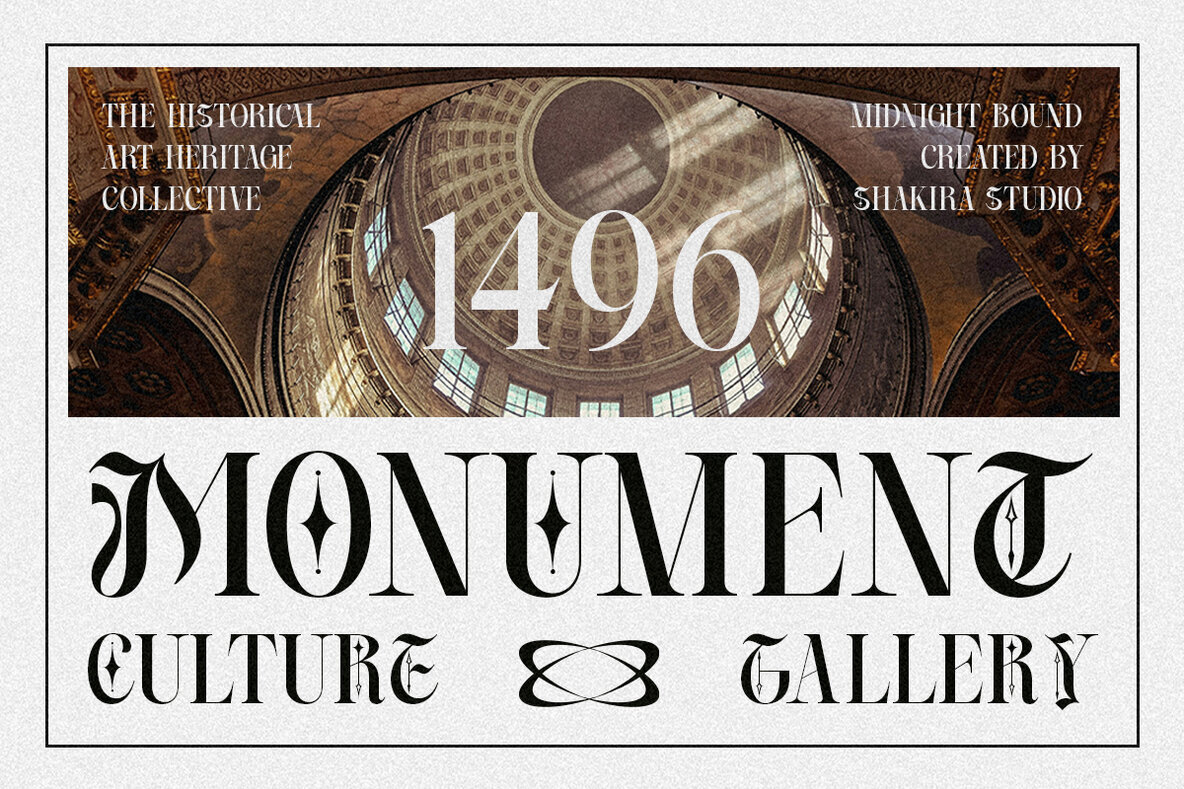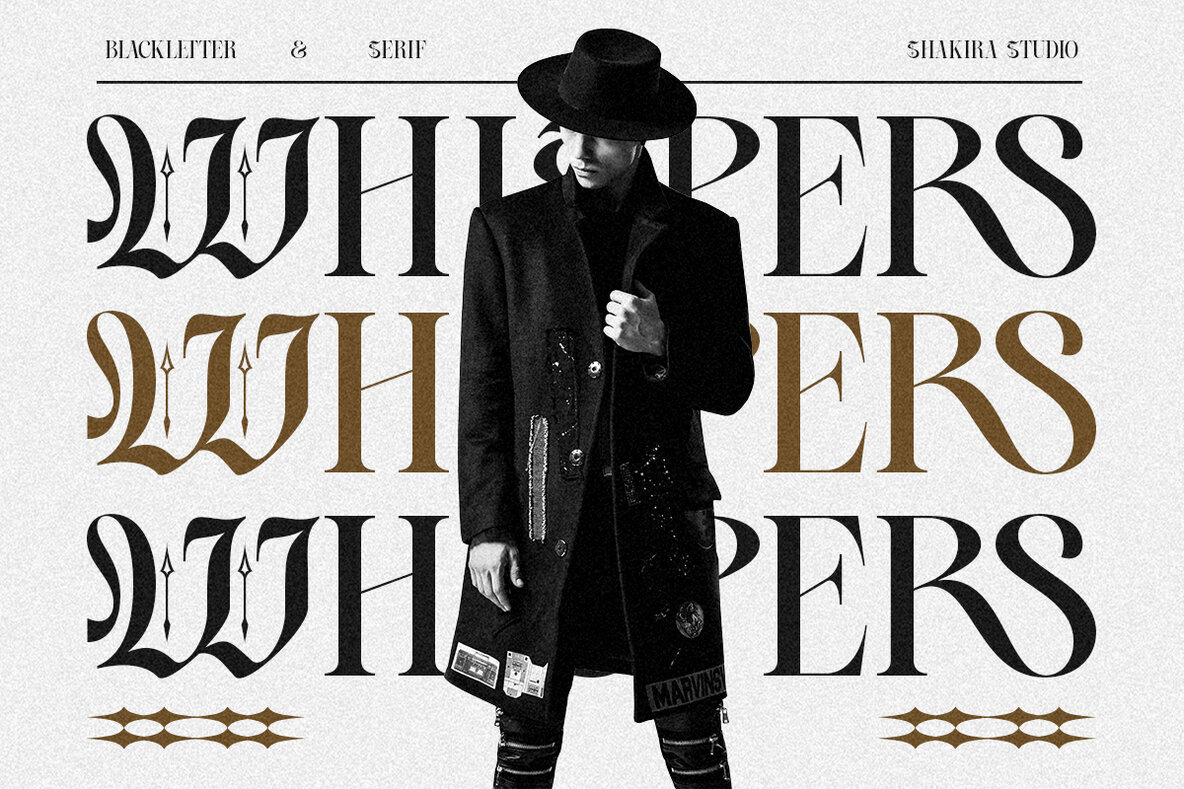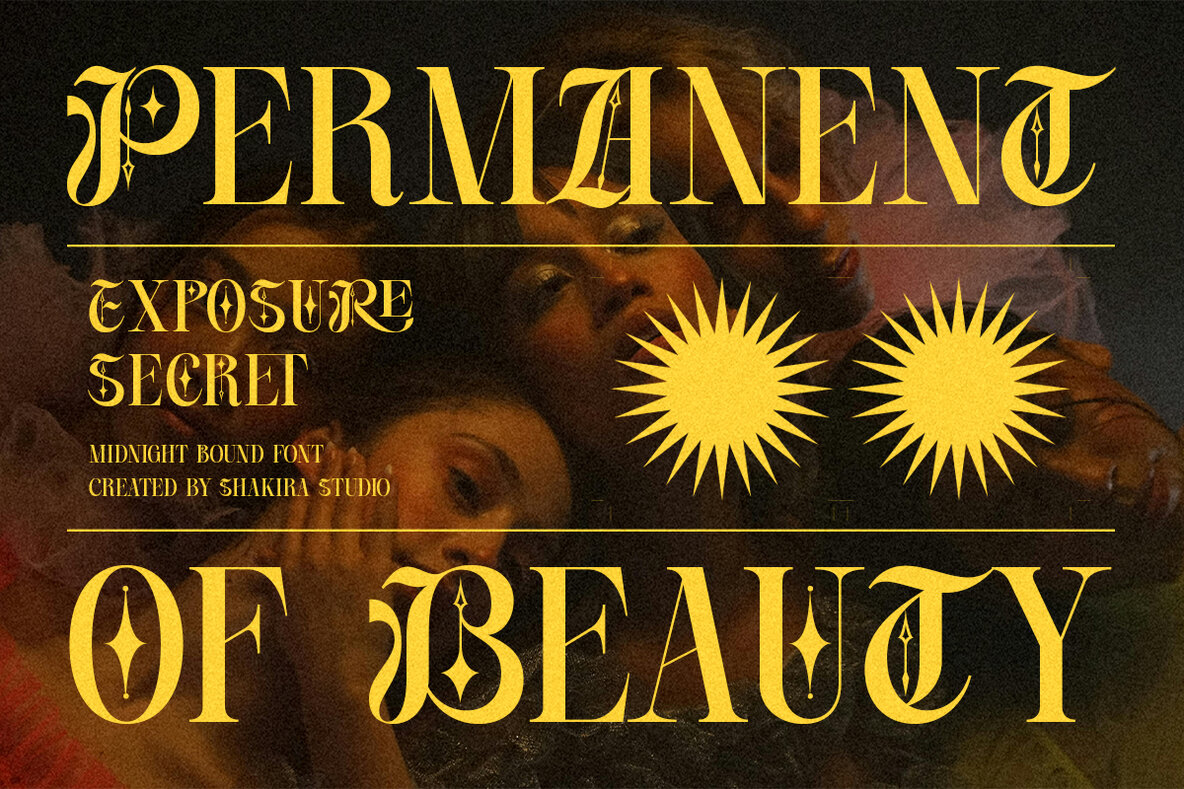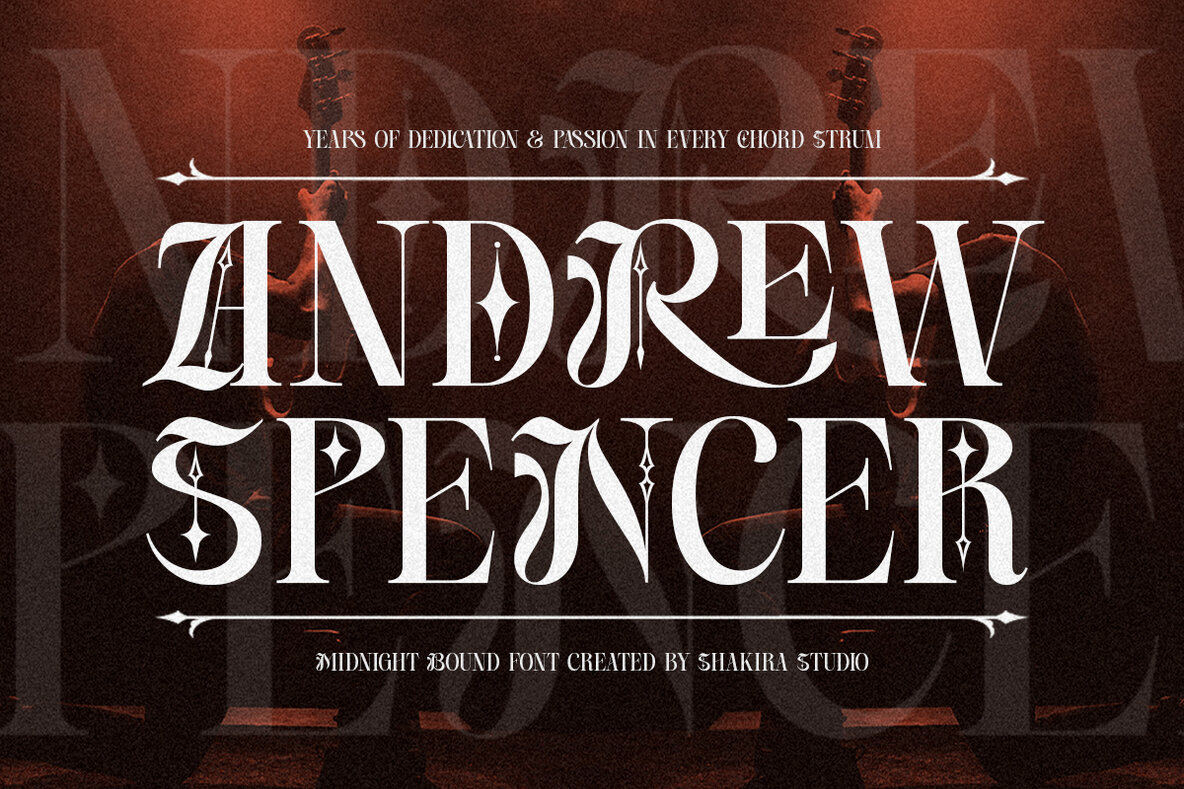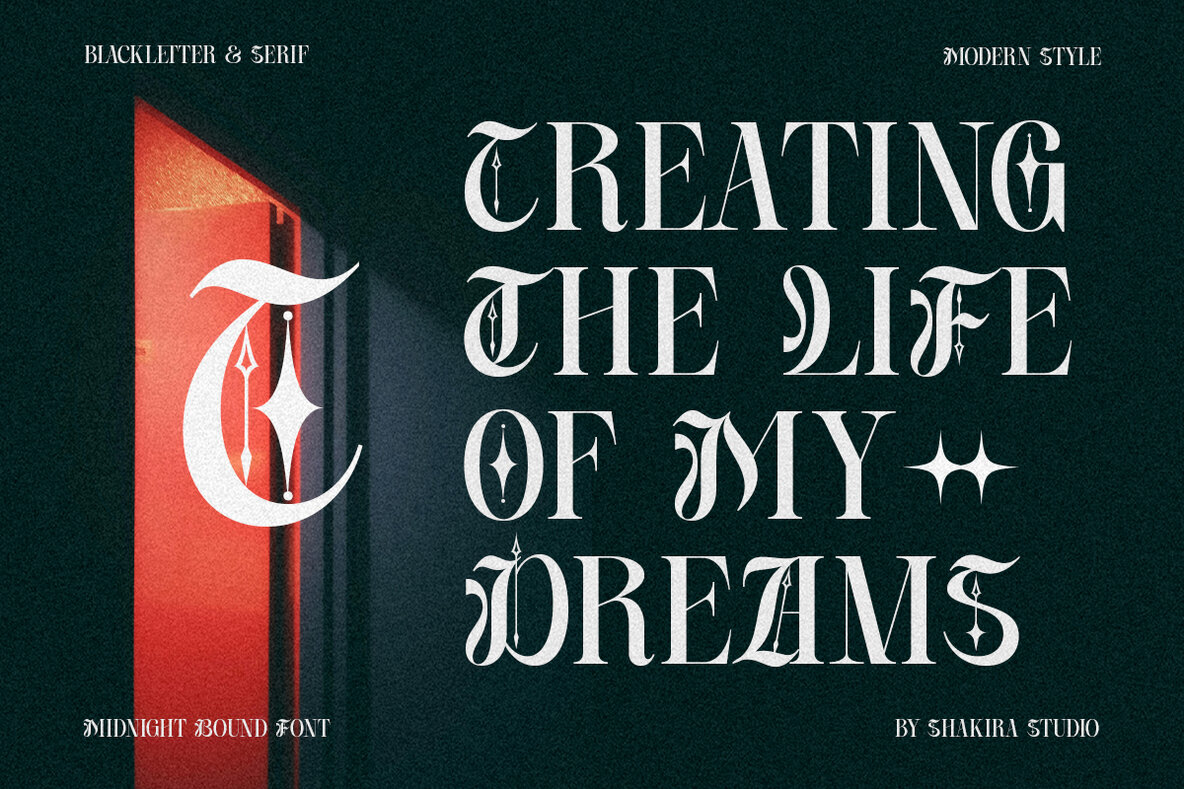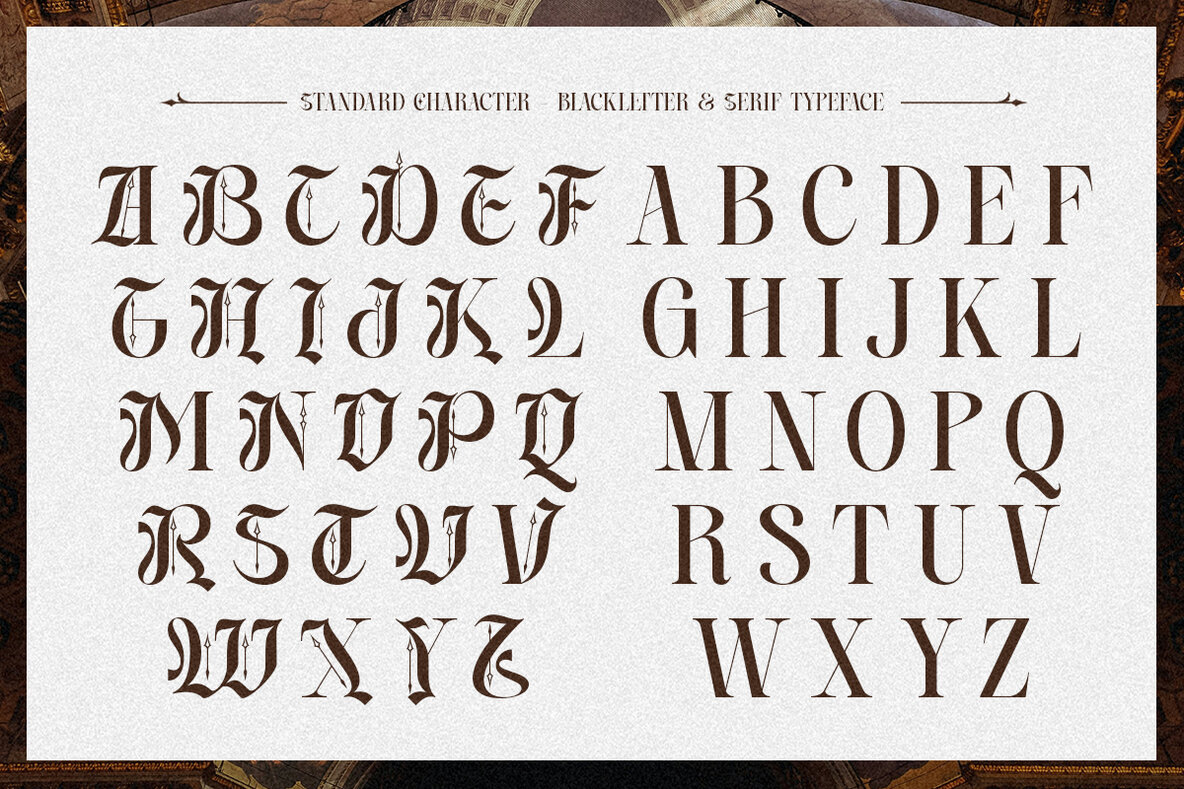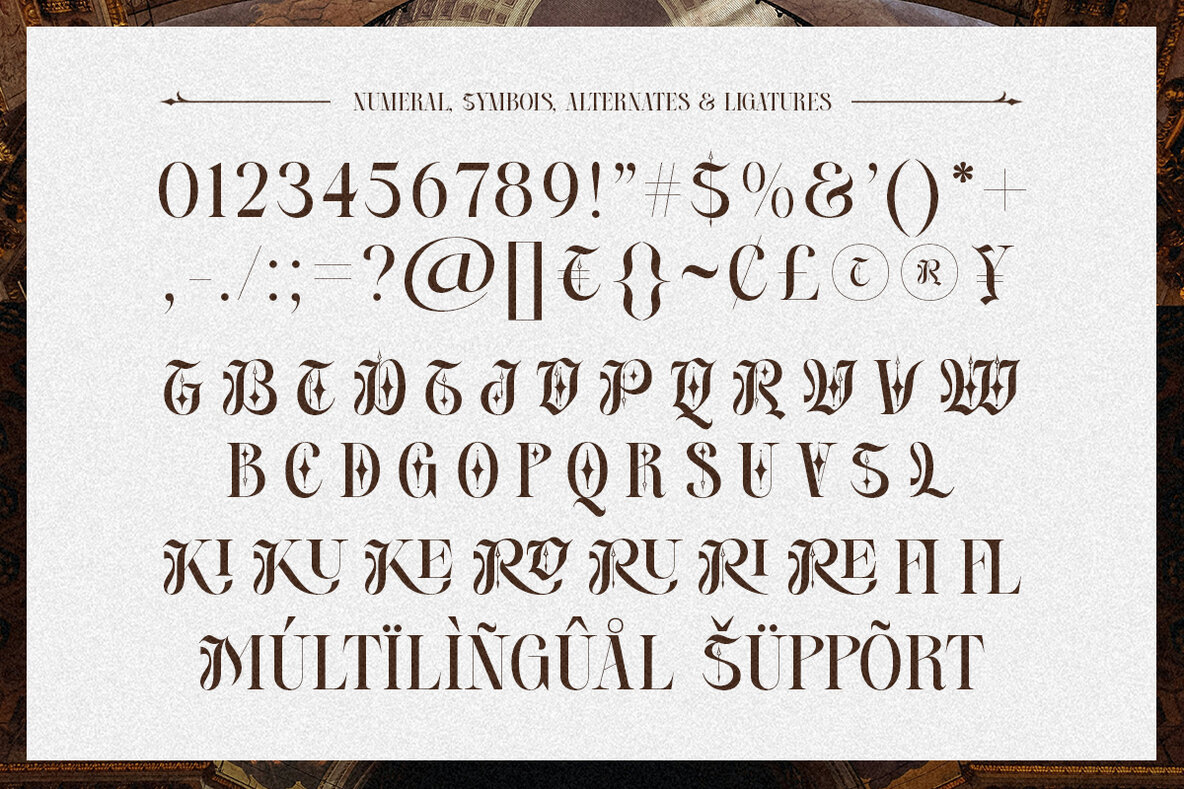
Midnight Bound Font
Midnight Bound Regular
Introducing a typeface that merges the boldness of blackletter with the elegance of serif, creating a unique fusion that balances historic charm with modern flair. Ideal for graphic designers aiming to create visually striking logos, editorial pieces, or digital interfaces, this font offers a distinct touch that stands out in any project. Each character is intricately detailed, adding a layer of sophistication to your designs while ensuring every element contributes to a memorable visual narrative.
This font is versatile and user-friendly, equipped with regular weights and complete multilingual support across numerous languages including English, French, and German, among others. Its OpenType features like ligatures and alternates are accessible in popular design software such as Adobe Illustrator, Photoshop, and InDesign, as well as Microsoft Word. With PUA encoded characters, it’s fully accessible without requiring advanced design tools. Engage your audience with a font that seamlessly integrates traditional elements with contemporary design needs, elevating your creative projects to new heights.